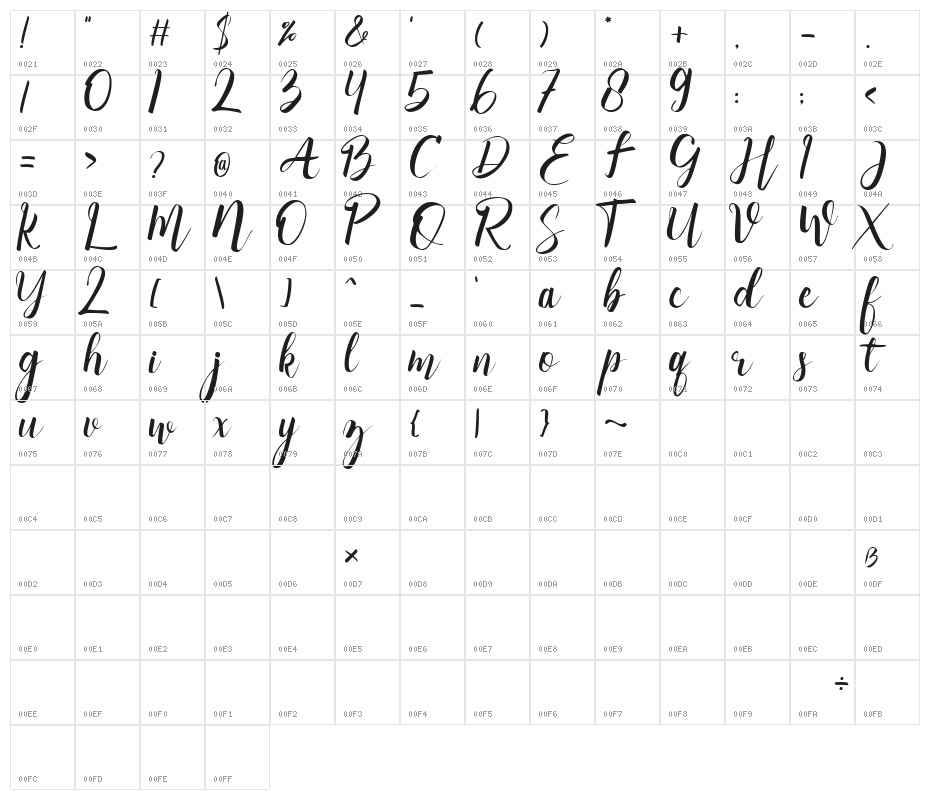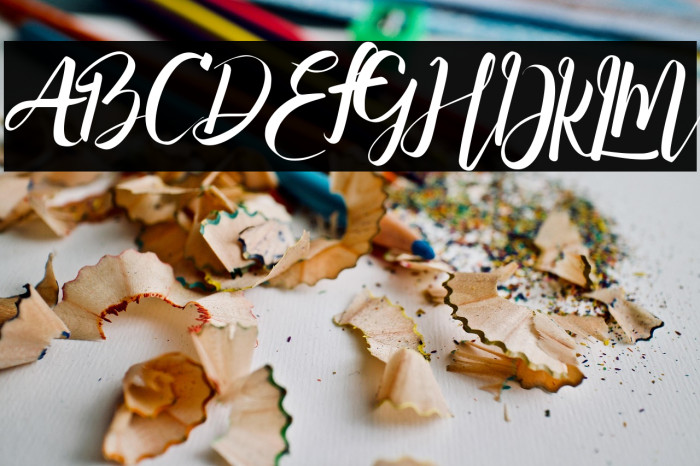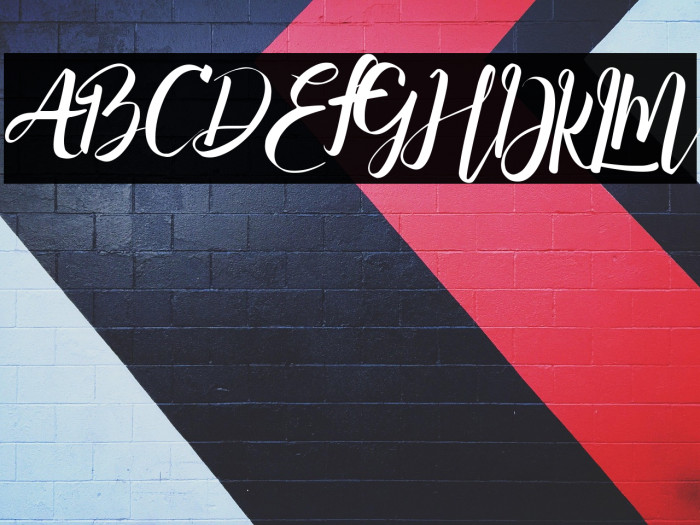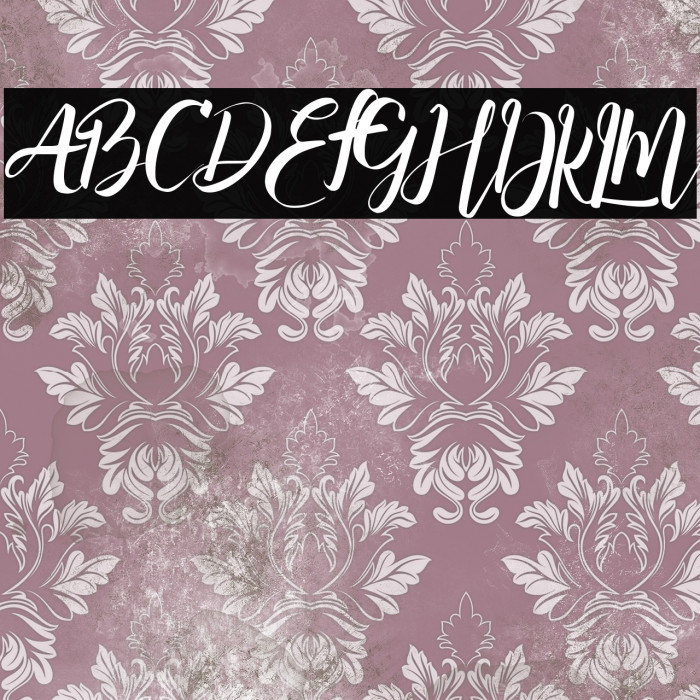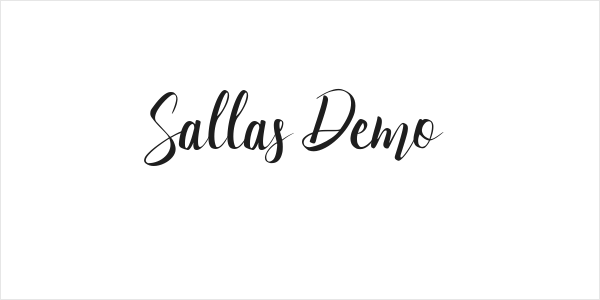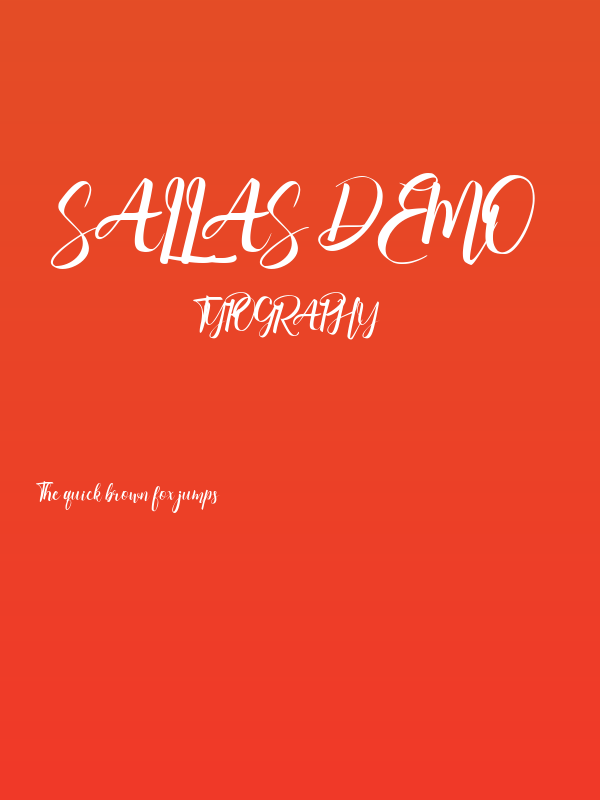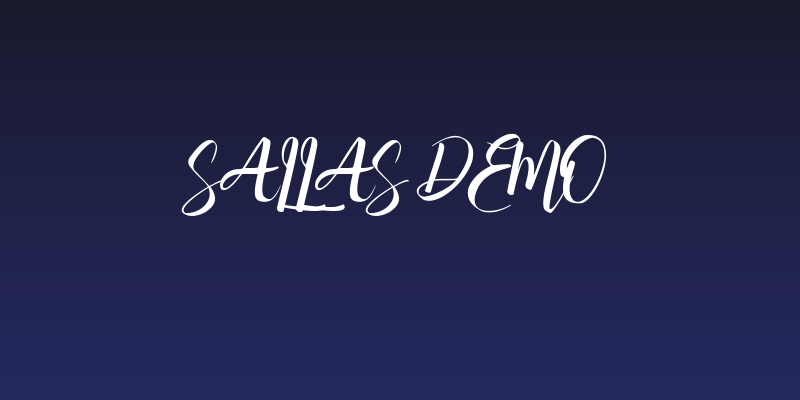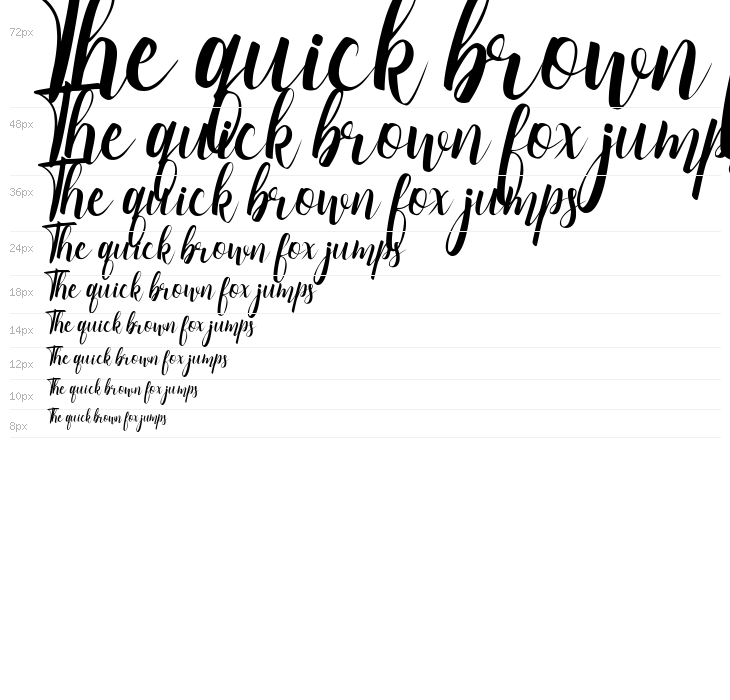
Sallas Demo Font
Sallas Demo Description
This font features an elegant, flowing script style with a modern twist. The characters are connected with smooth, sweeping strokes that give it a handwritten appearance. The uppercase letters are bold and prominent, while the lowercase letters maintain a consistent flow, enhancing readability. The numerals and special characters are designed to match the overall aesthetic, with a playful yet sophisticated look. The font's high contrast between thick and thin strokes adds to its dynamic and lively feel, making it suitable for creative and expressive projects.